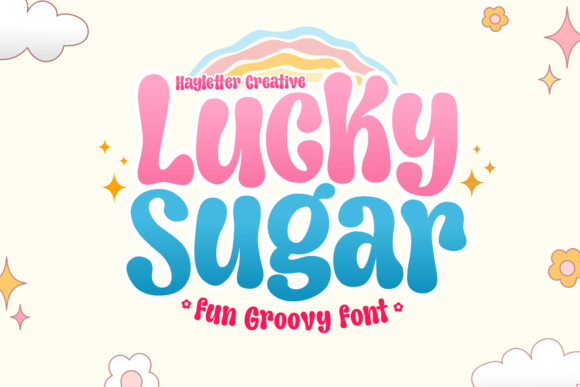
Lucky Sugar Font: A Fun and Groovy Display Font for Your Design Needs
In the world of typography, fonts play a crucial role in conveying the tone and personality of a design. When it comes to creating eye-catching and memorable designs, the right font can make all the difference. If you’re looking for a font that brings a touch of retro sweetness to your project, look no further than the Lucky Sugar Font. This fun and groovy display font is perfect for adding a dose of fun and nostalgia to any design.
What is Lucky Sugar Font?
Lucky Sugar Font is a charming, retro-inspired display font that features a unique and playful style. Designed to evoke the spirit of the past, this font is perfect for creating designs that need a touch of vintage charm. Whether you’re working on a poster, invitation, or any other design project, Lucky Sugar Font is sure to add a dash of personality and whimsy.
Key Features of Lucky Sugar Font
- Retro-Inspired Style: Lucky Sugar Font features a charming, retro-inspired style that’s perfect for creating designs that need a touch of nostalgia.
- Fun and Groovy: This font is designed to bring a smile to people’s faces. Its playful and whimsical style makes it perfect for designs that need a dose of fun and personality.
- Display Font: Lucky Sugar Font is a display font, making it perfect for headlines, titles, and other design elements that need to stand out.
- Easy to Read: Despite its playful style, Lucky Sugar Font is easy to read, making it perfect for designs that need to communicate a message.
Uses of Lucky Sugar Font
Lucky Sugar Font is a versatile font that can be used in a variety of design projects. Here are some ideas to get you started:
Perfect for:
- Posters: Lucky Sugar Font is perfect for creating eye-catching posters that need a touch of retro charm.
- Invitations: Add a touch of whimsy and personality to your invitations with Lucky Sugar Font.
- Logos: This font can be used to create unique and memorable logos that need a touch of personality.
- Social Media Graphics: Lucky Sugar Font is perfect for creating social media graphics that need to stand out.
- Packaging Design: Add a touch of retro charm to your packaging design with Lucky Sugar Font.
Benefits of Using Lucky Sugar Font
Using Lucky Sugar Font in your design projects comes with a range of benefits. Here are some of the advantages of using this font:
Why Choose Lucky Sugar Font?
- Unique Style: Lucky Sugar Font features a unique and playful style that’s sure to set your design apart.
- High-Quality Design: Lucky Sugar Font is designed to high standards, ensuring that your designs look professional and polished.
Tips and Tricks for Using Lucky Sugar Font
Here are some tips and tricks for getting the most out of Lucky Sugar Font:
Expert Advice
- Use it Sparingly: Use Lucky Sugar Font sparingly to add emphasis and personality to your design.
- Experiment with Colors: Experiment with different colors to find the perfect combination for your design.
- Pair it with Other Fonts: Pair Lucky Sugar Font with other fonts to create a unique and interesting contrast.
- Pay Attention to Kerning: Pay attention to kerning to ensure that your text looks professional and polished.
Lucky Sugar Font is a fun and groovy display font that’s perfect for adding a touch of retro sweetness to any design. With its charming, retro-inspired style and easy-to-use design, this font is sure to become a favorite among designers. Whether you’re working on a poster, invitation, or any other design project, Lucky Sugar Font is a great choice.